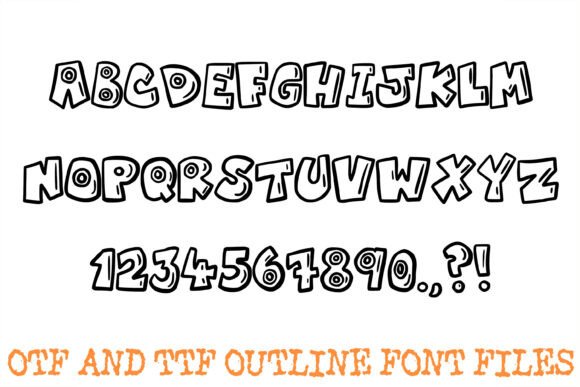
Introducing the Comic Doodle Font: Unleash Whimsy and Wonder in Your Designs
Are you a designer or crafter looking to infuse your projects with a dash of playfulness and nostalgia? Look no further than the Comic Doodle Font, a vibrant and energetic display typeface that’s sure to capture the hearts of audiences everywhere. Inspired by the classic charm of Saturday morning cartoons, this delightful font is perfect for bringing a sense of joy and spontaneity to your creative endeavors.
A Font that Celebrates Whimsy and Hand-Crafted Charm
The Comic Doodle Font is a masterful blend of chunky, asymmetrical characters wrapped in thick, playful hand-drawn outlines. Each letter is meticulously crafted to evoke the feeling of a custom drawing, as if it was plucked straight from a child’s imagination. The result is a font that exudes a lighthearted, carefree spirit that’s impossible to resist. Whether you’re designing for children or simply looking to add a touch of whimsy to your work, this font is sure to delight.
Endless Applications for Designers and Crafters
The Comic Doodle Font is incredibly versatile, making it an excellent choice for a wide range of design projects. Here are just a few ideas to get you started:
- Children’s Product Packaging: Add a touch of magic to toy packaging, kids’ clothing, and other products designed for little ones.
- Vibrant Sticker Sheets: Create eye-catching sticker sheets that are perfect for kids’ parties, school events, or simply as a fun way to decorate laptops and water bottles.
- Graphic Novel Titles: Add a bold, playful touch to your graphic novel titles or comic book covers.
- Casual School-Event Flyers: Create engaging flyers for school events, such as bake sales, talent shows, or spirit weeks.
- Social Media Graphics: Use the Comic Doodle Font to create attention-grabbing social media graphics that are sure to stand out in crowded feeds.
A Bold, High-Contrast Look that’s Instantly Engaging
One of the standout features of the Comic Doodle Font is its bold, high-contrast look. The thick, playful outlines and chunky characters create a visually appealing combination that’s both instantly engaging and highly legible. This makes it perfect for designs where you want to grab attention and hold it. Whether you’re designing for print or digital, this font is sure to make your work pop.
Perfect for Building a Brand Identity
The Comic Doodle Font is also an excellent choice for building a brand identity, particularly for toy brands, children’s entertainment, or educational institutions. The font’s playful, hand-crafted spirit is instantly recognizable and can help establish a brand as friendly, approachable, and fun. By incorporating this font into your branding, you can create a cohesive visual identity that resonates with your target audience.
Tips for Getting the Most out of the Comic Doodle Font
To get the most out of the Comic Doodle Font, here are a few tips to keep in mind:
- Experiment with Color: The Comic Doodle Font looks amazing in bright, bold colors. Don’t be afraid to experiment with different hues to find the perfect combination for your design.
- Mix and Match: Try pairing the Comic Doodle Font with other fonts to create a unique visual identity. The font’s bold, playful look pairs well with simpler sans-serif fonts.
- Play with Texture: Add an extra layer of depth to your design by incorporating textures or patterns. The Comic Doodle Font looks great with subtle texture overlays or background patterns.
The Comic Doodle Font is a joyful, high-energy display typeface that’s sure to bring a smile to your audience’s faces. With its chunky, asymmetrical characters and thick, playful hand-drawn outlines, this font is perfect for designers and crafters looking to add a touch of whimsy to their work. Whether you’re designing for children or simply looking to create engaging, attention-grabbing graphics, the Comic Doodle Font is an excellent choice. So why wait? Unleash your creativity and get ready to doodle your way to design success!